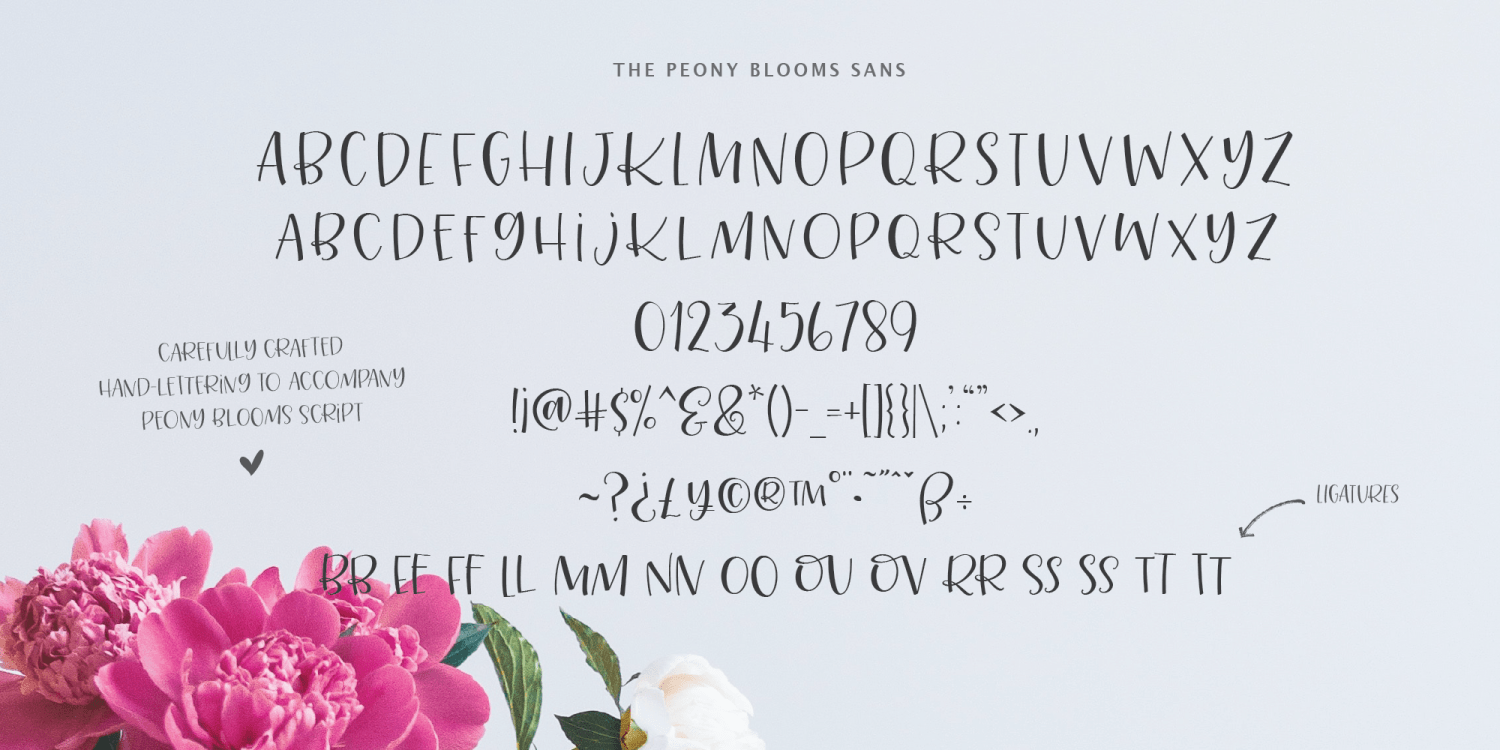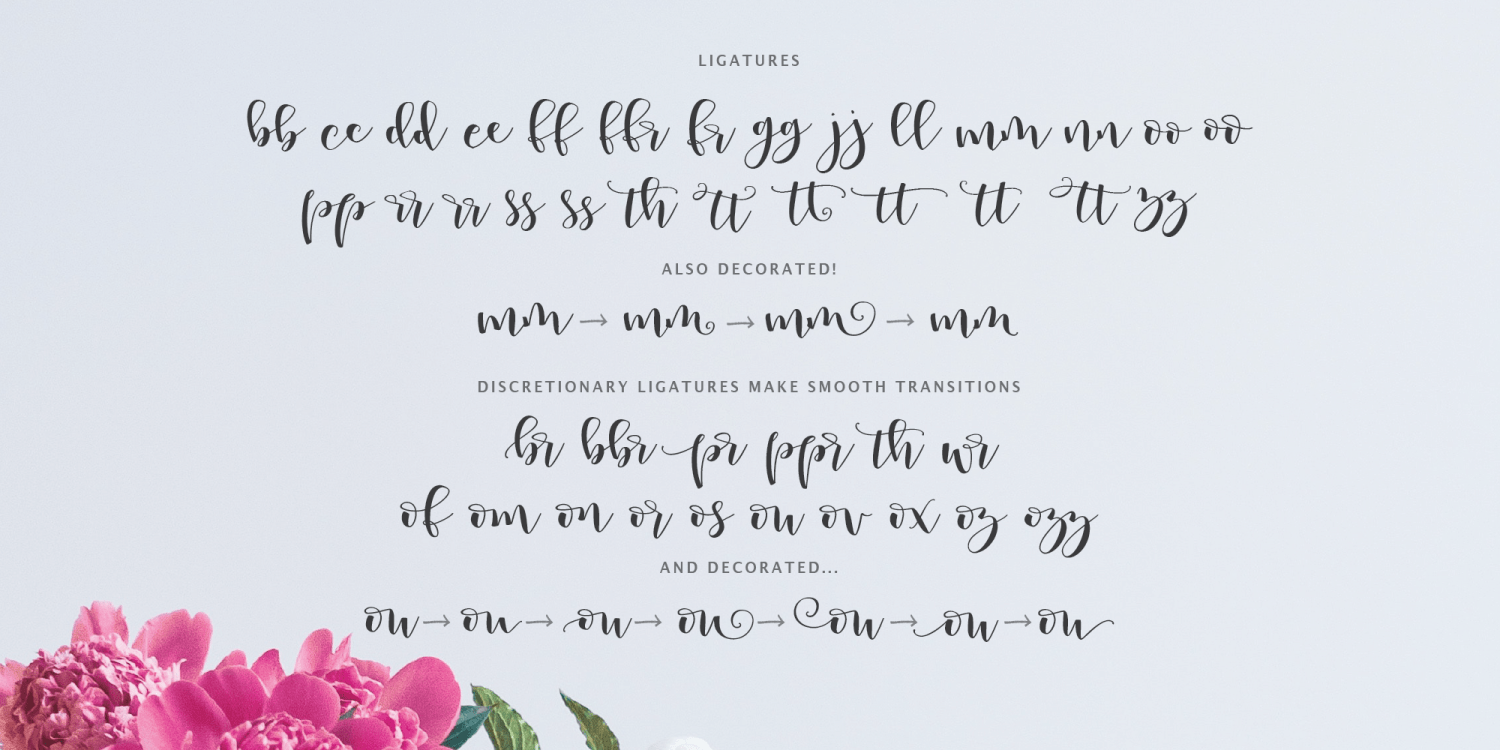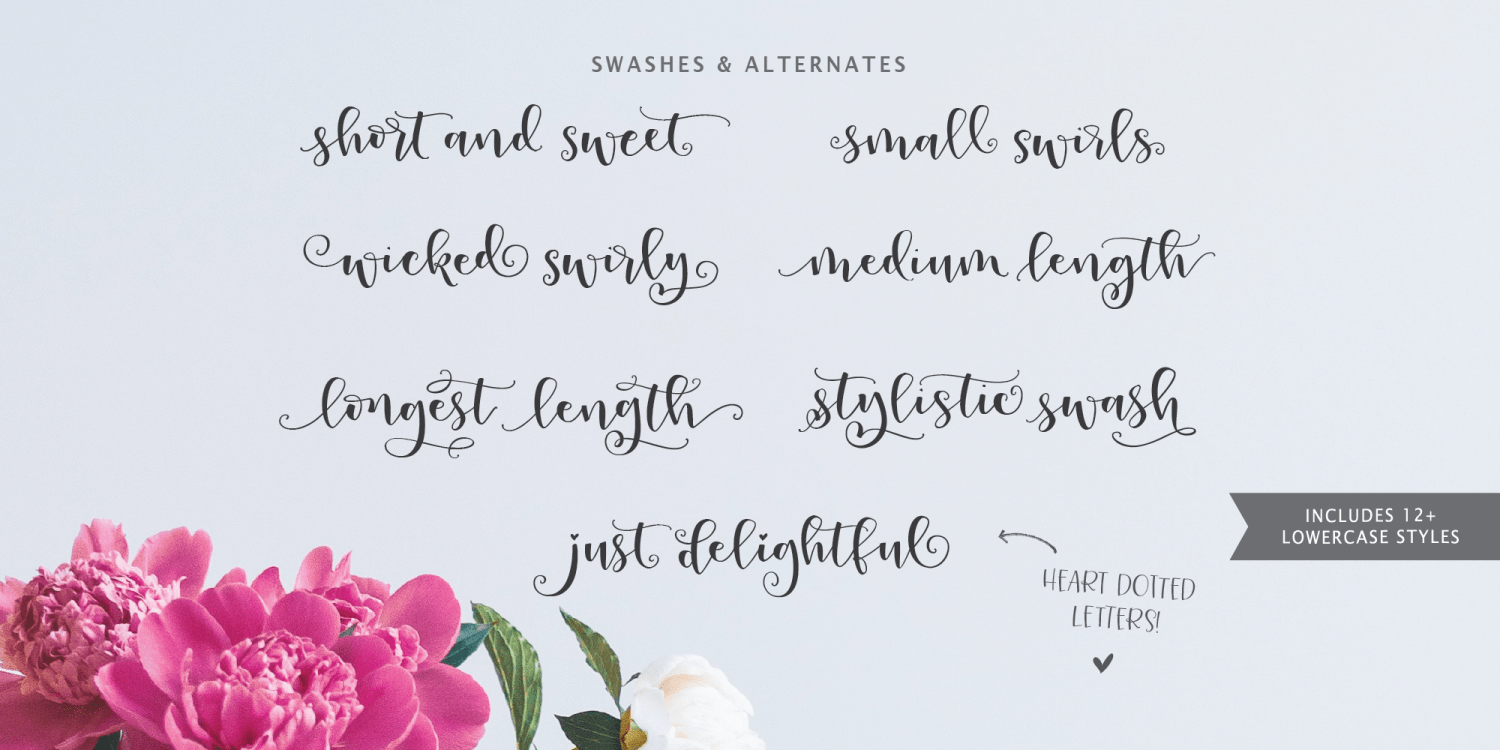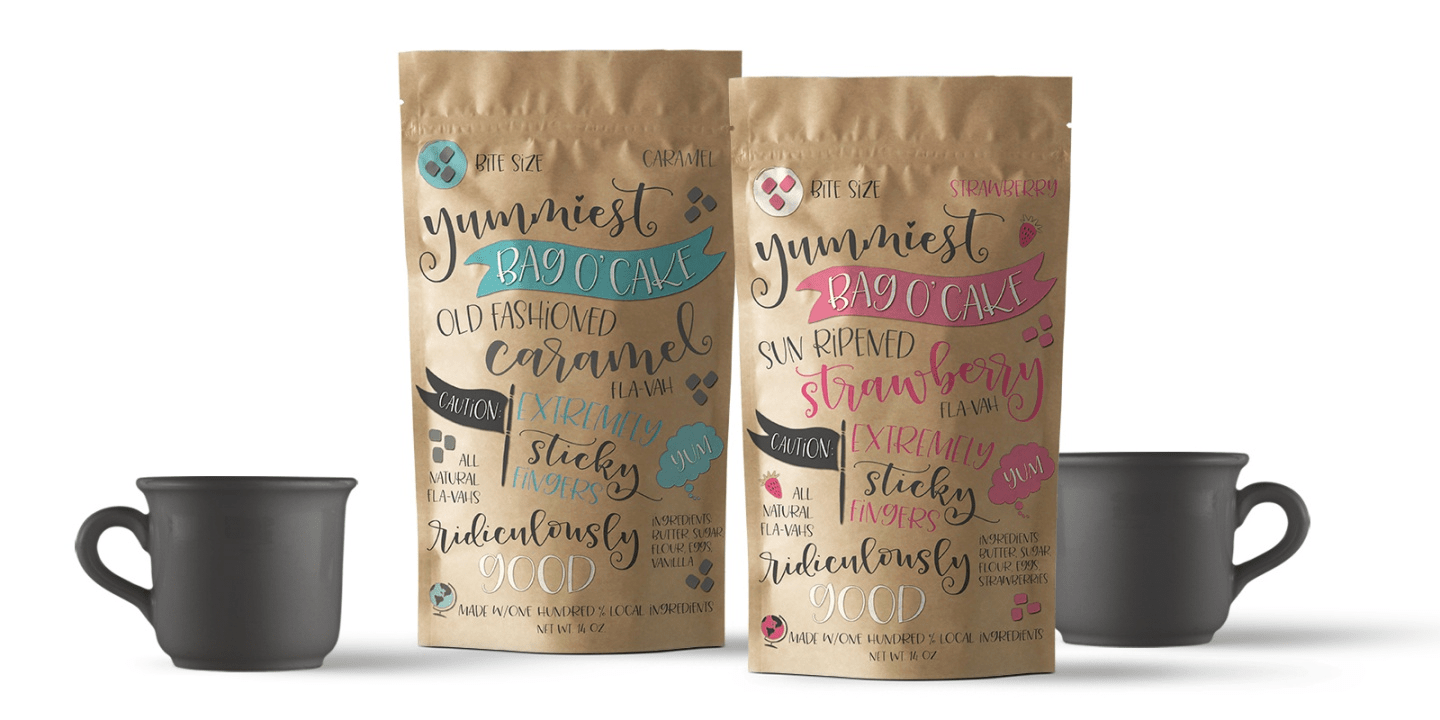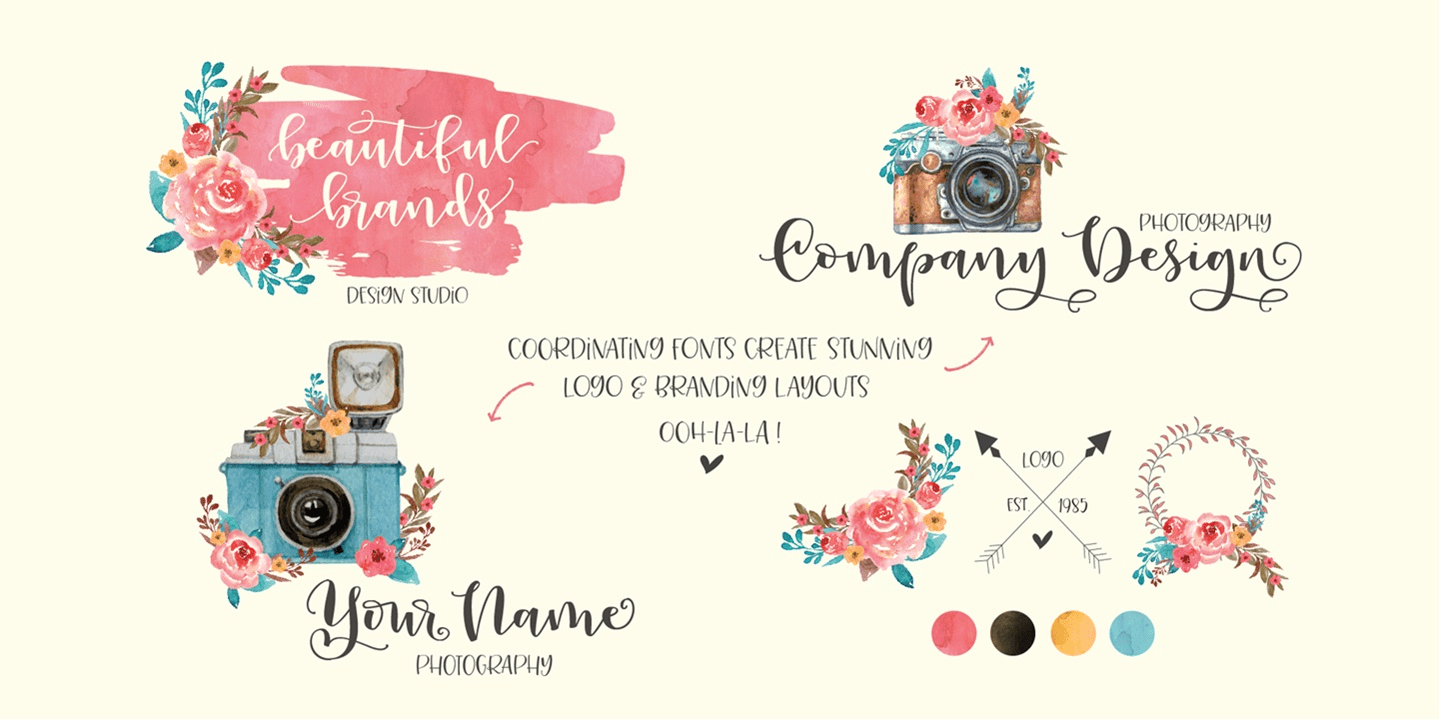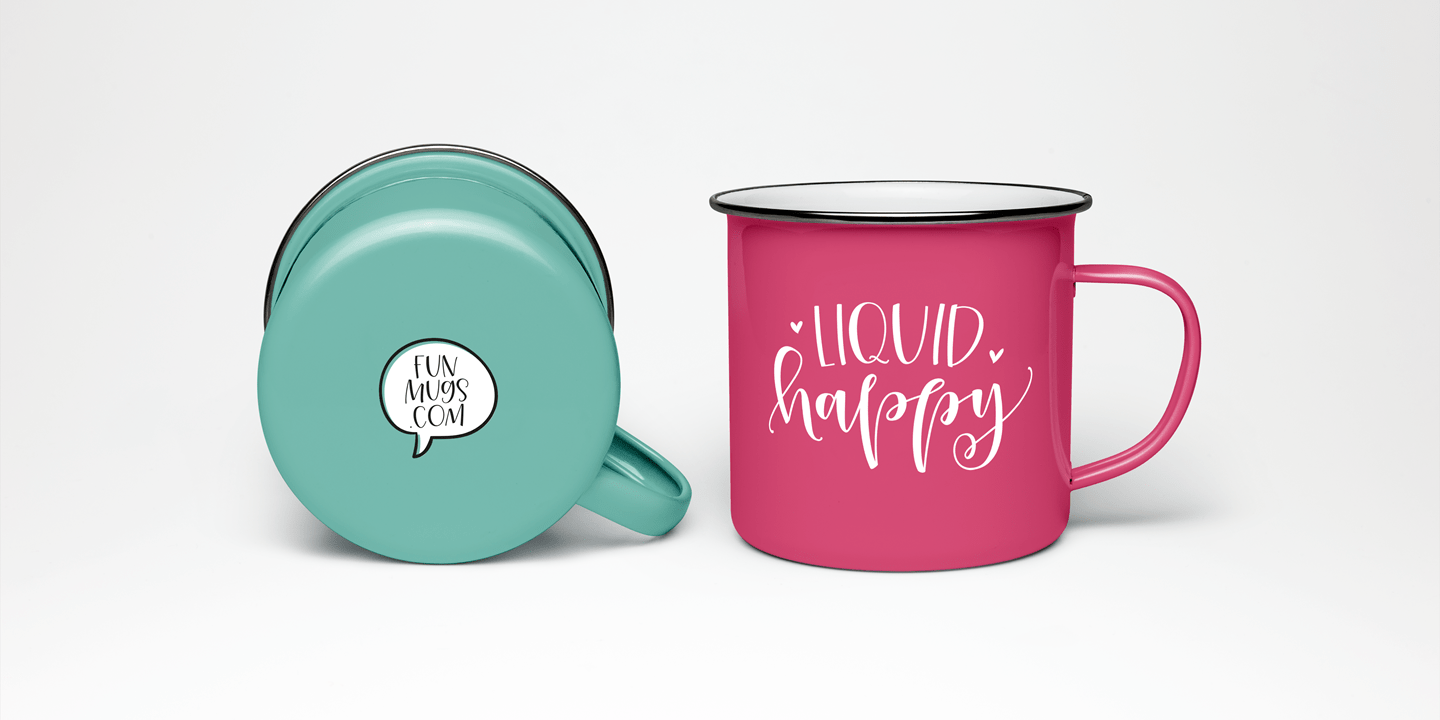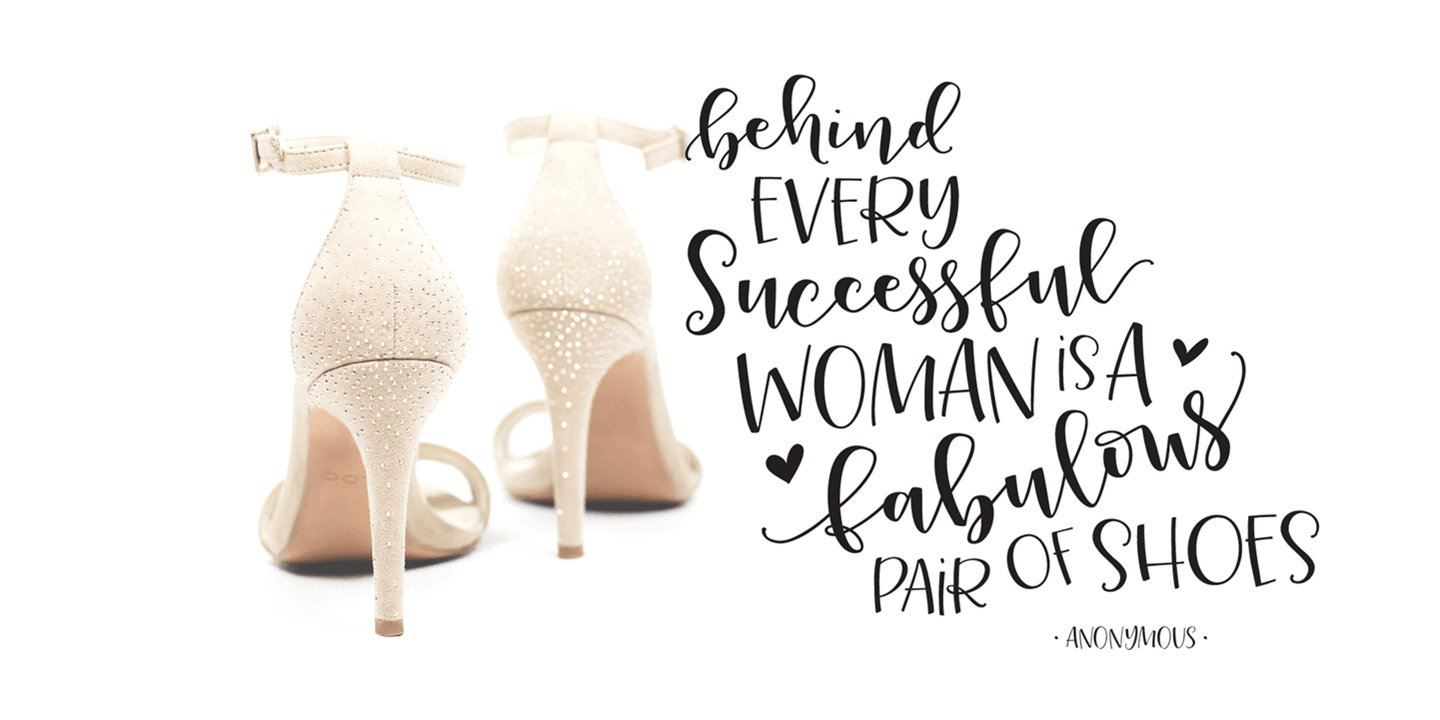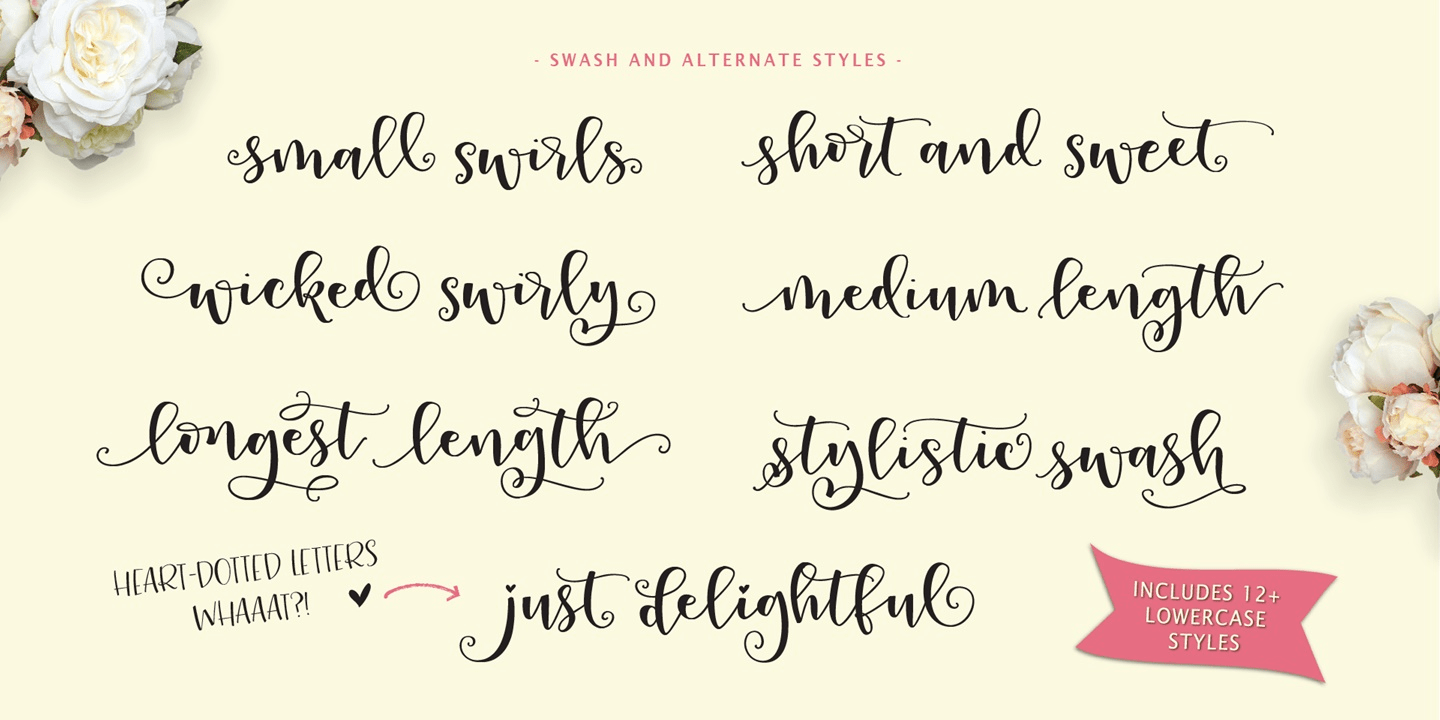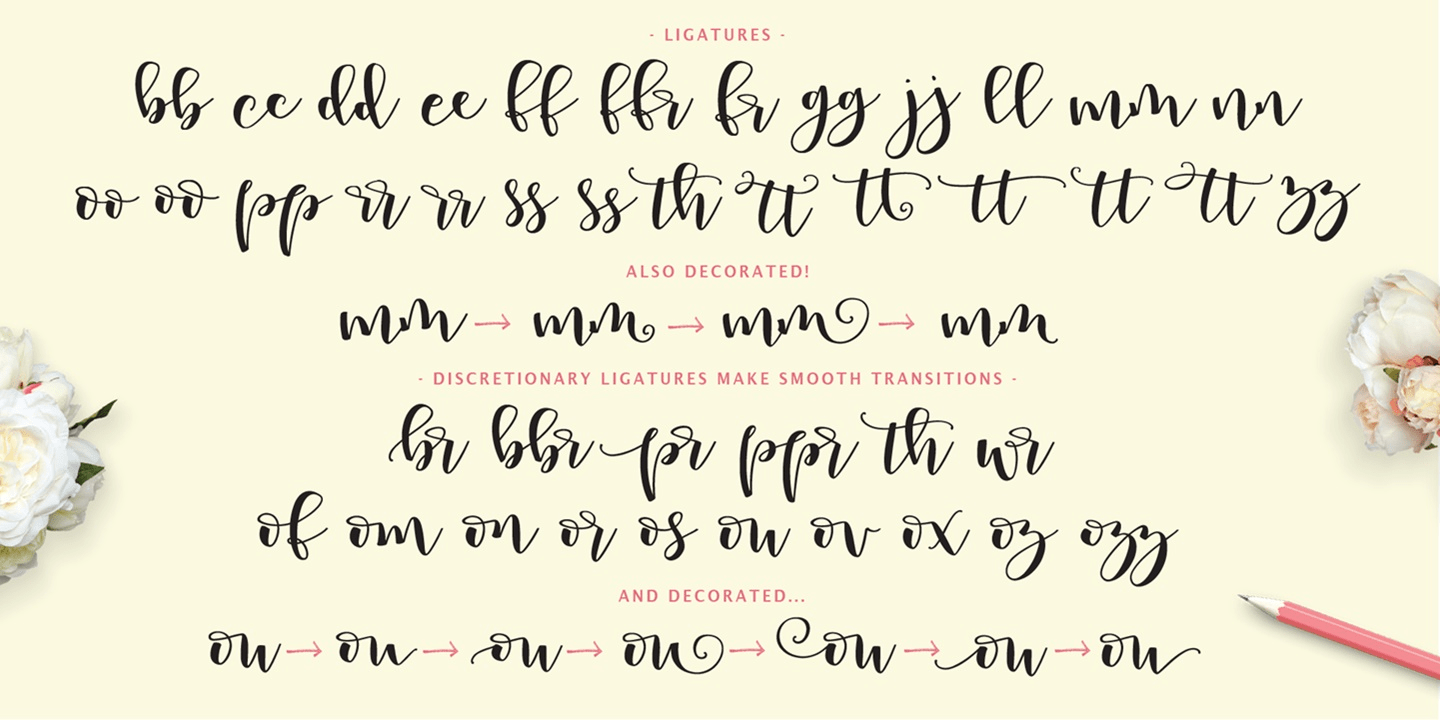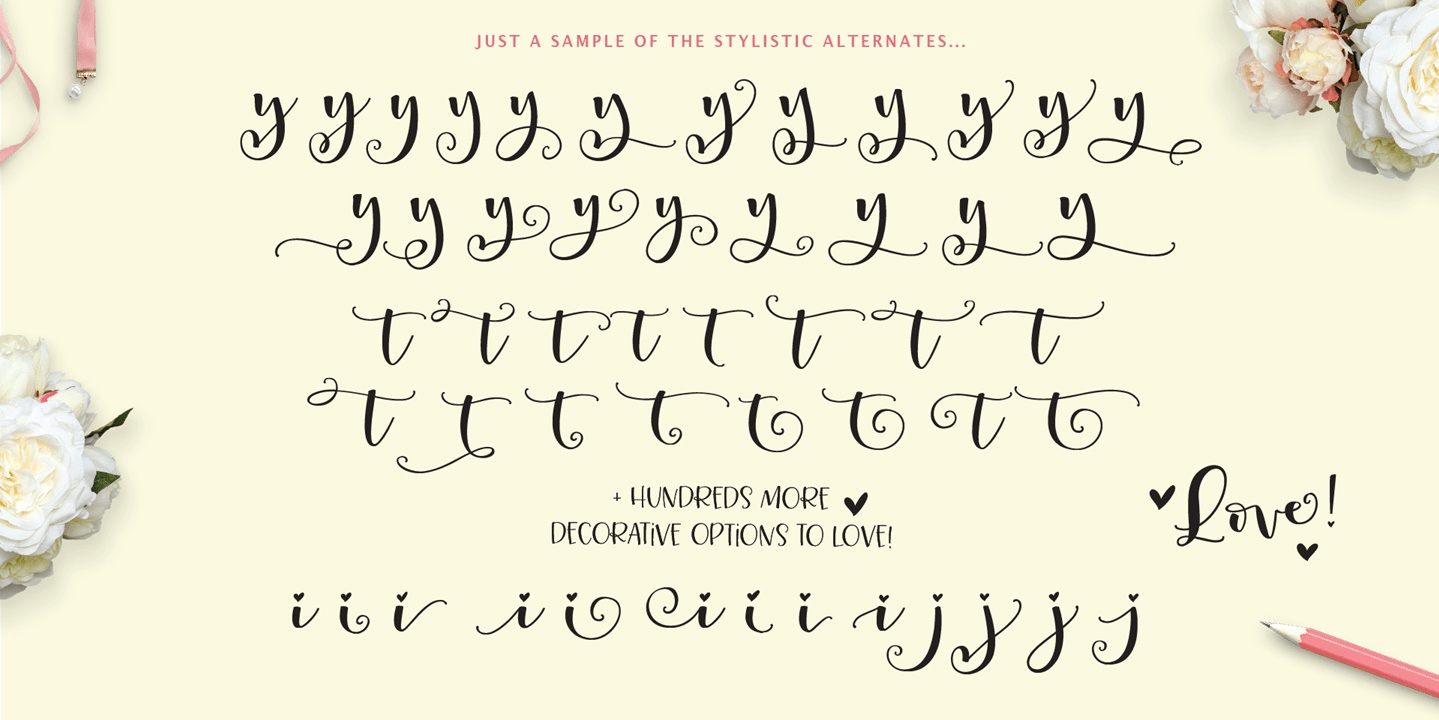
Peony Blooms
Hello Lettering lovers, Designers & Font addicts! Please allow me to introduce Peony Blooms! A carefully curated hand lettered font twosome. A charming combination of a feminine, bouncy script paired with a playful hand-written Sans. Use them best together, or even on their own. Either way - you get 2 fonts for the price of one!
With 12+ lowercase styles packed into this (PUA encoded) file, everything you create will be entirely unique. Did I mention the alternate heart-dotted lowercase i's? Whaaaat?
I know you will have so much fun playing with this! Everything you create will be a completely unique work of art. The combinations of short, long, and sweet swirly swashes are endless.
2 Styles Included
Regular
Sans
The Peony Blooms font family includes 946 glyphs.